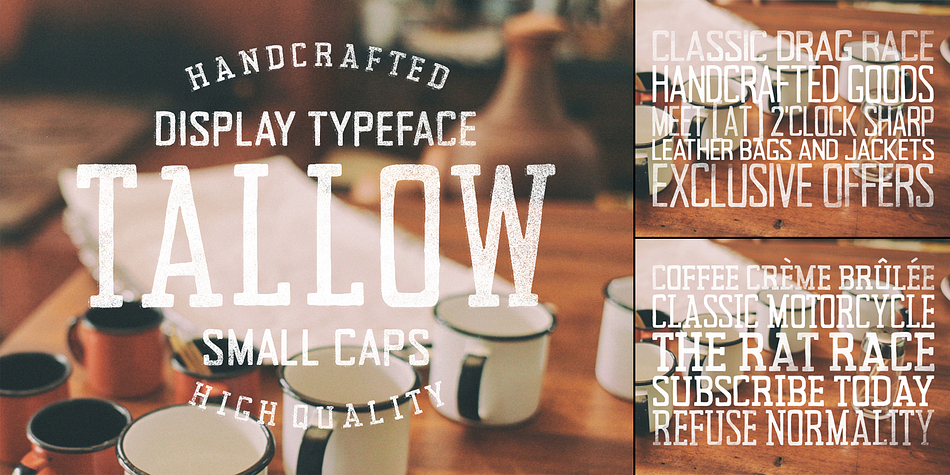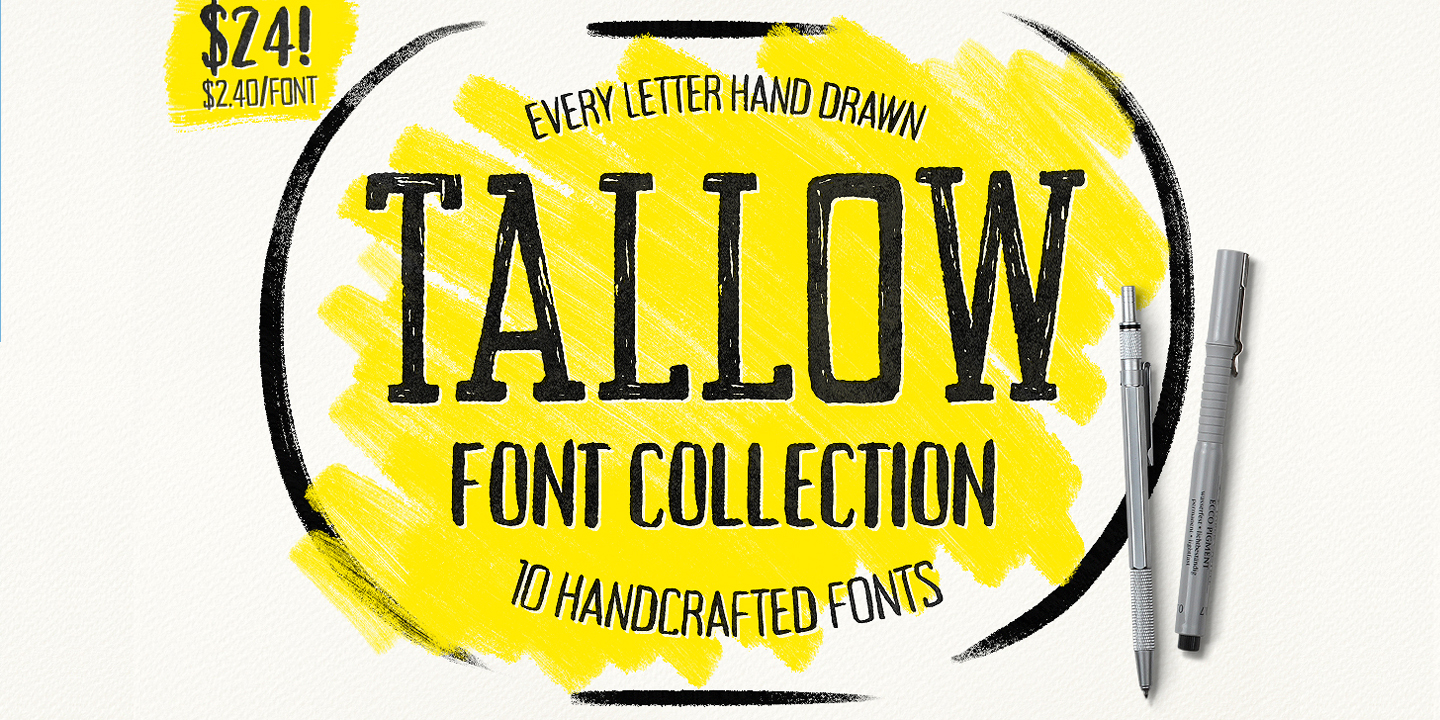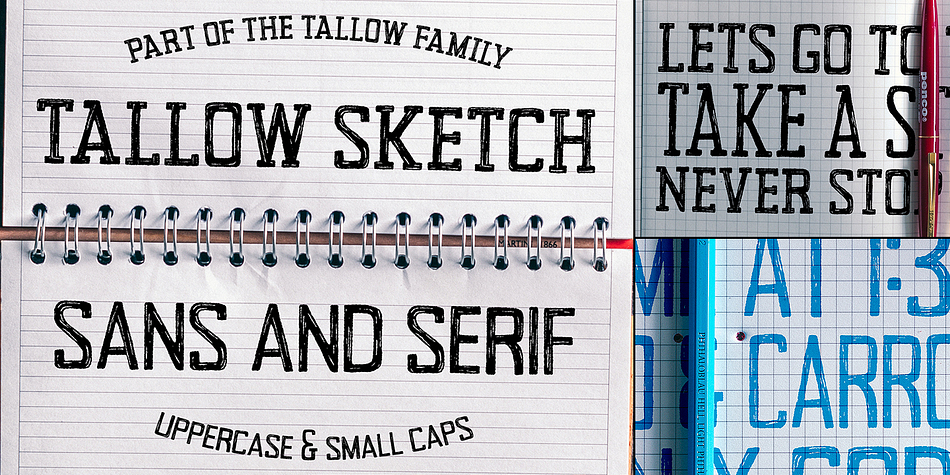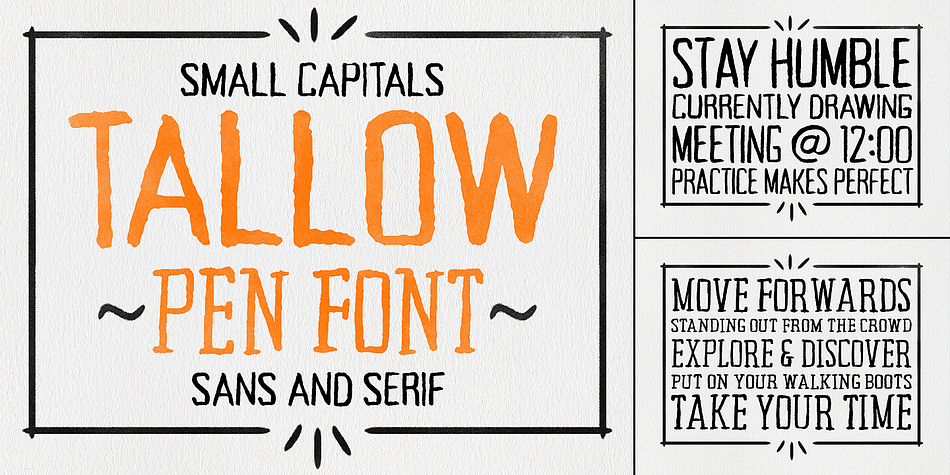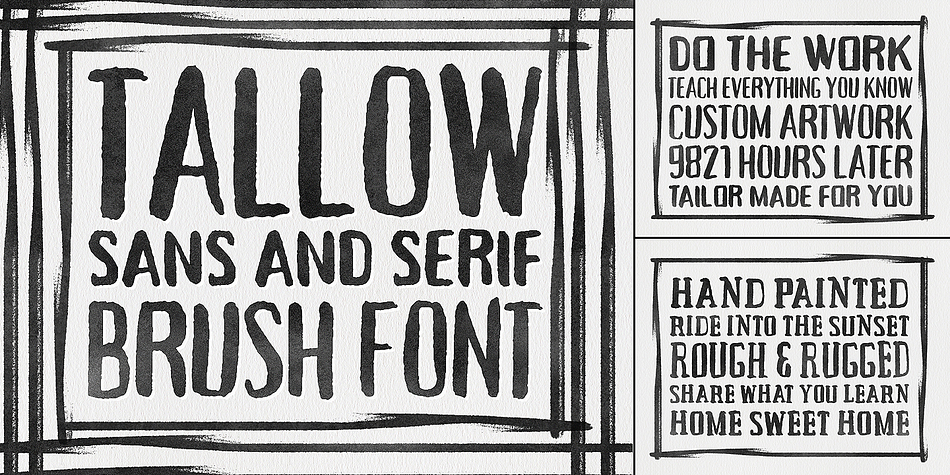
Tallow is a display sans, hand display slab font family. This typeface has ten styles and was published by Tom Chalky.
Introducing the Tallow font family. An awesome collection of 10 handcrafted fonts that will be a great asset to any font library. This uppercase (and small caps) family consists of 5 different styles; brush, pen, sketch, rough and regular. And each of the styles included are available as sans-serif and serif fonts.
The design of each and every font in this collection was based off the original design of Tallow. Right from the outset, I purposely designed these fonts to work together in harmony. Perfect for all kinds of design projects, from T-shirt design to Poster design, from Logo design to Packaging, and everything in between.